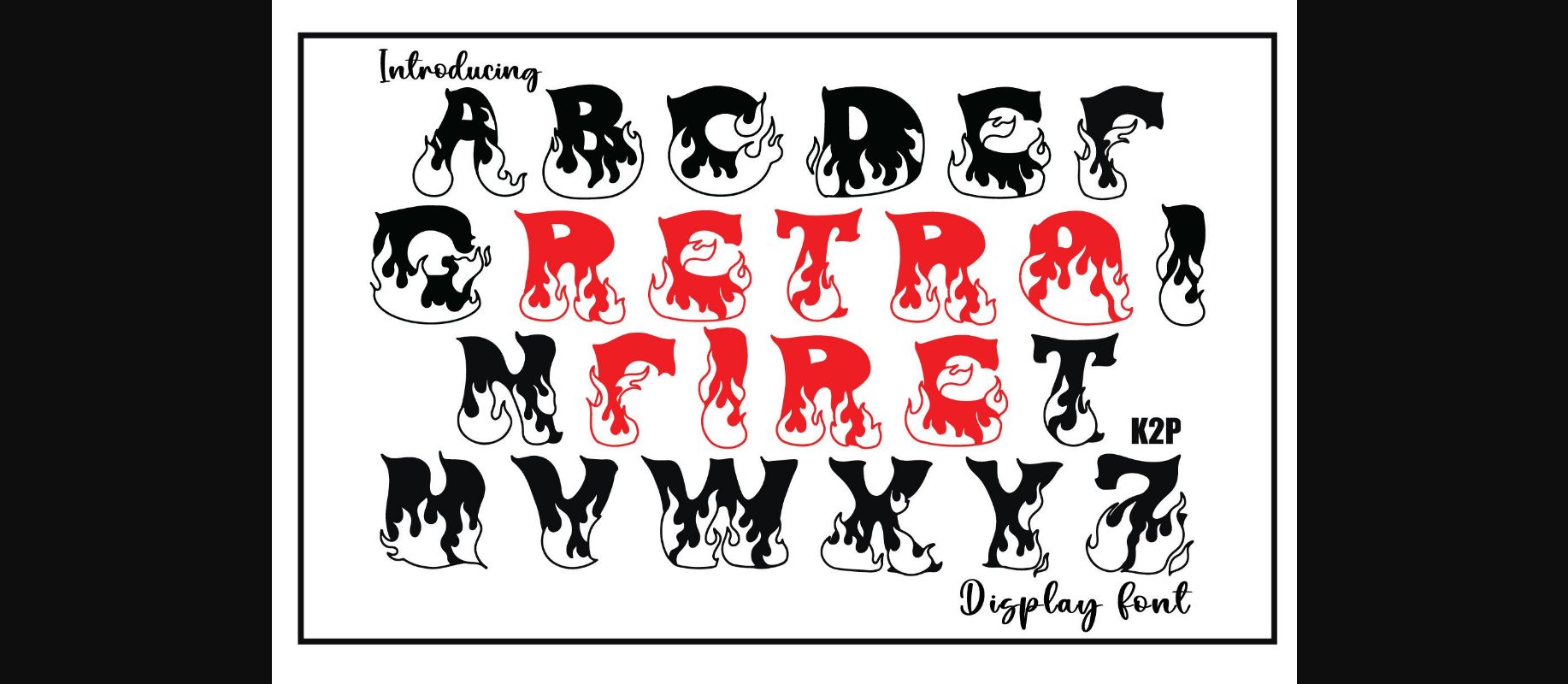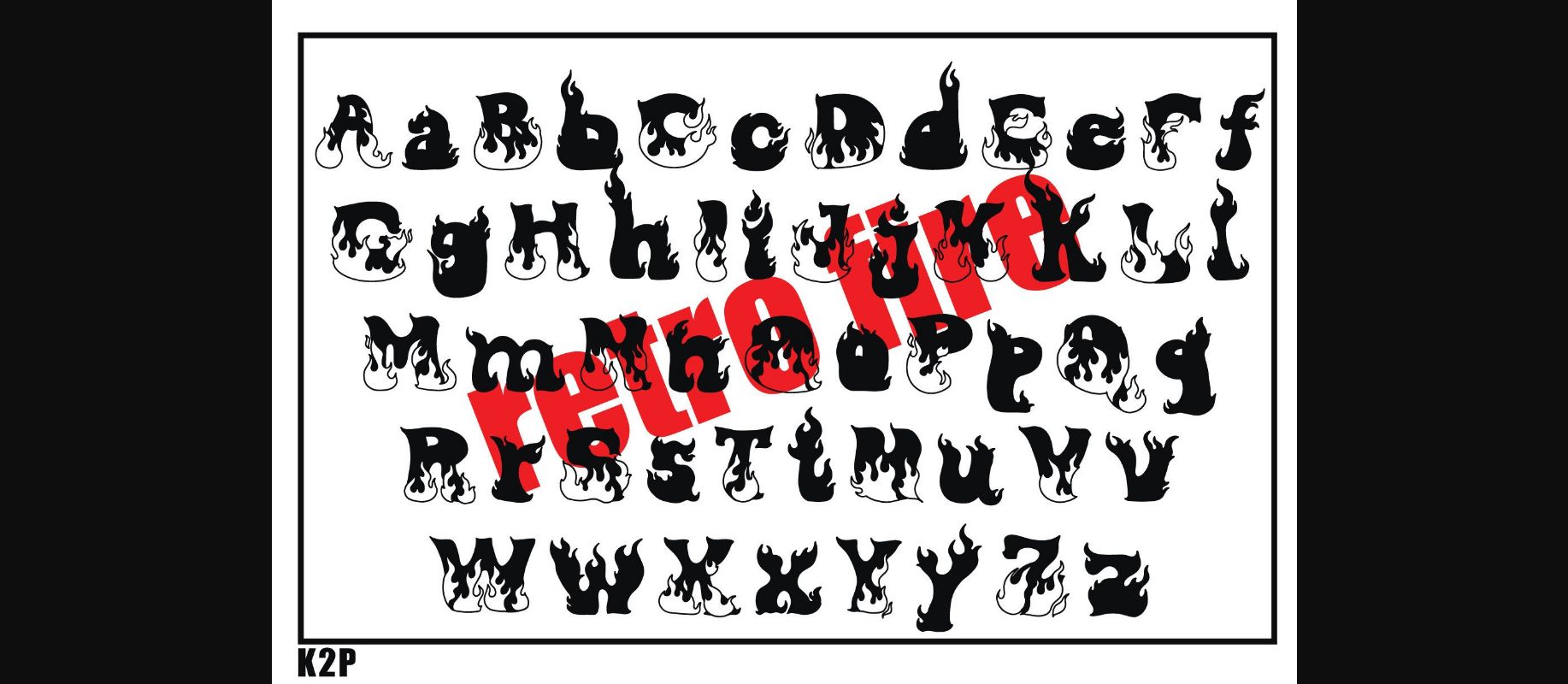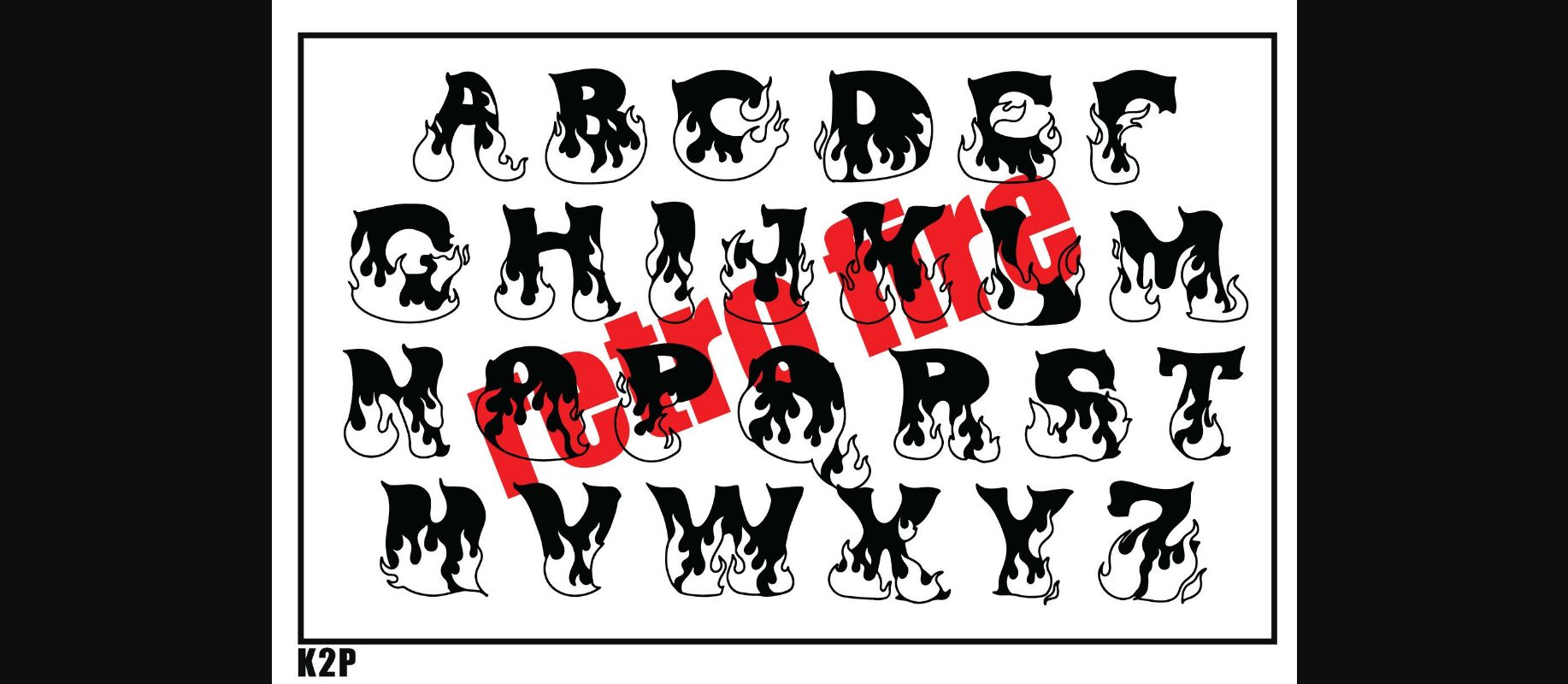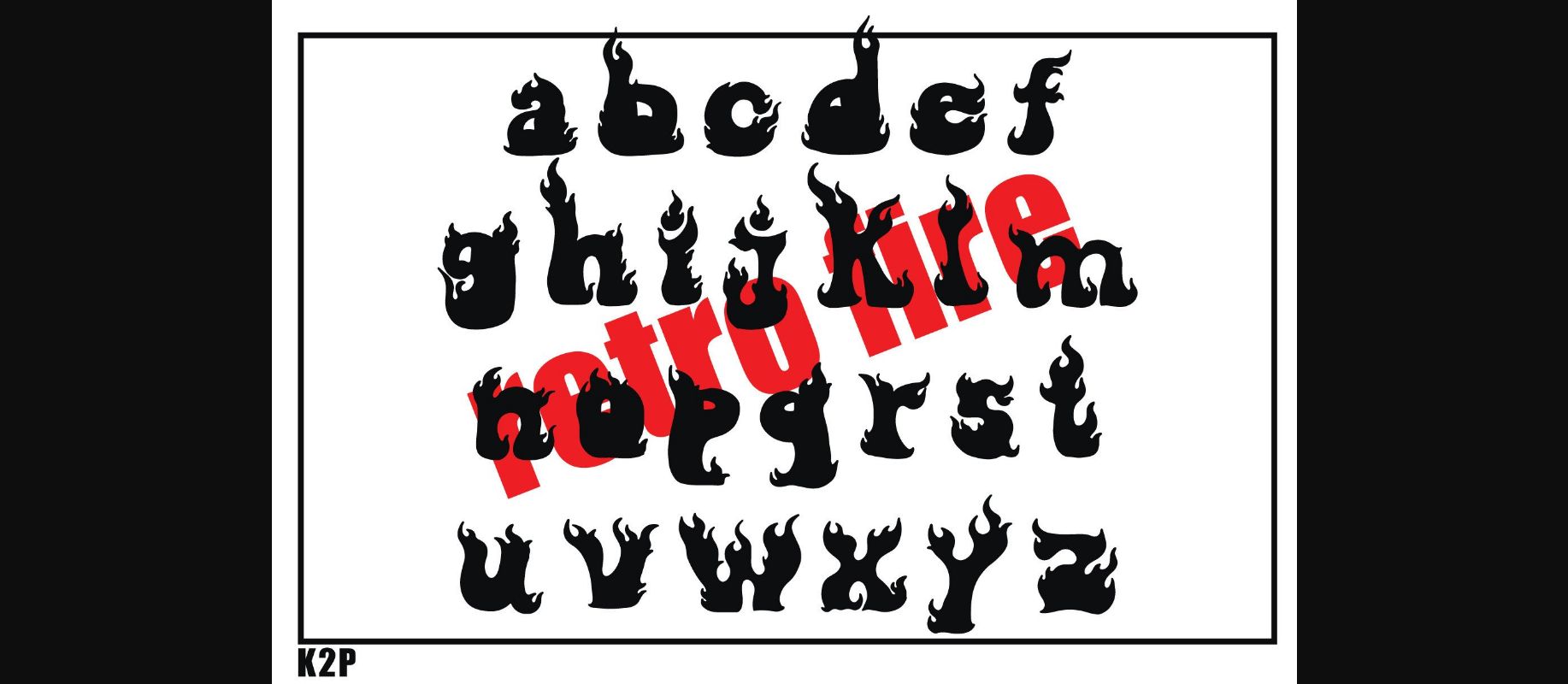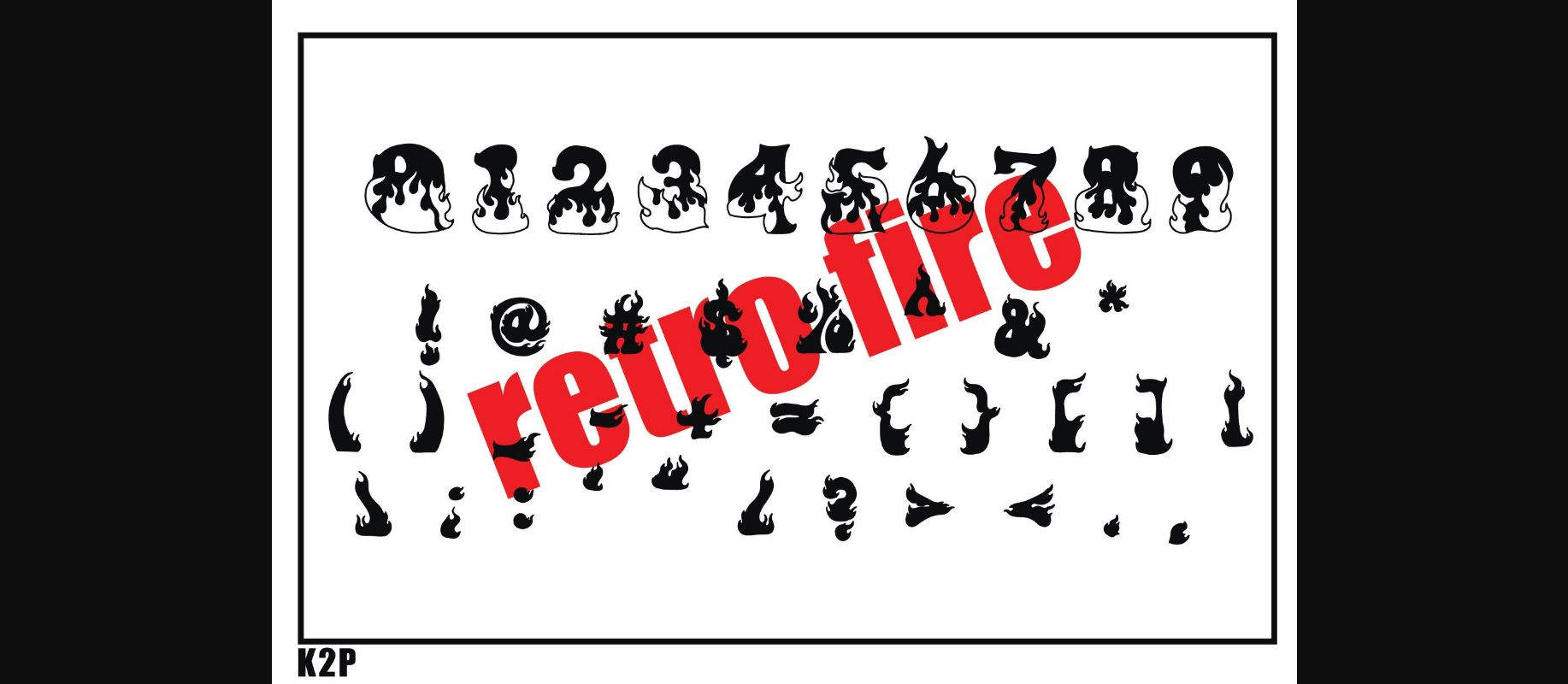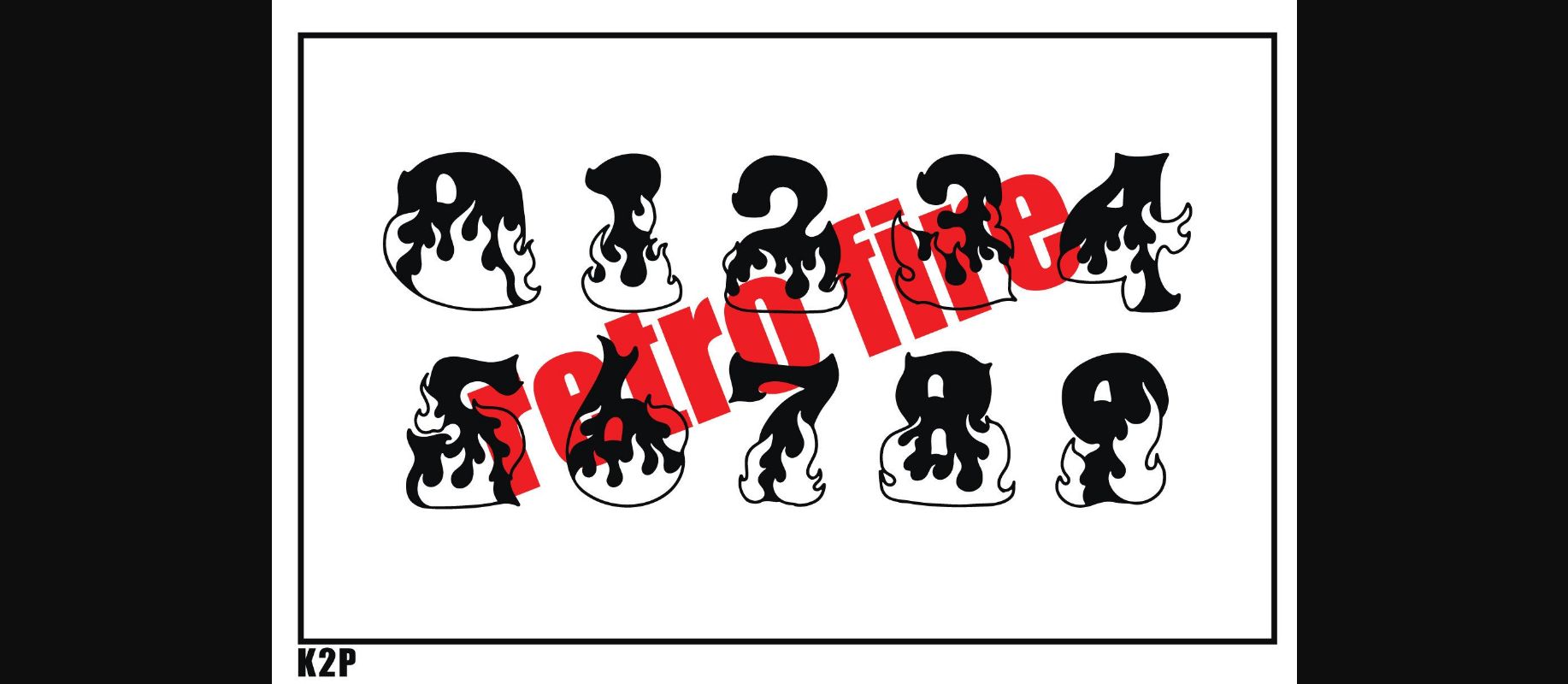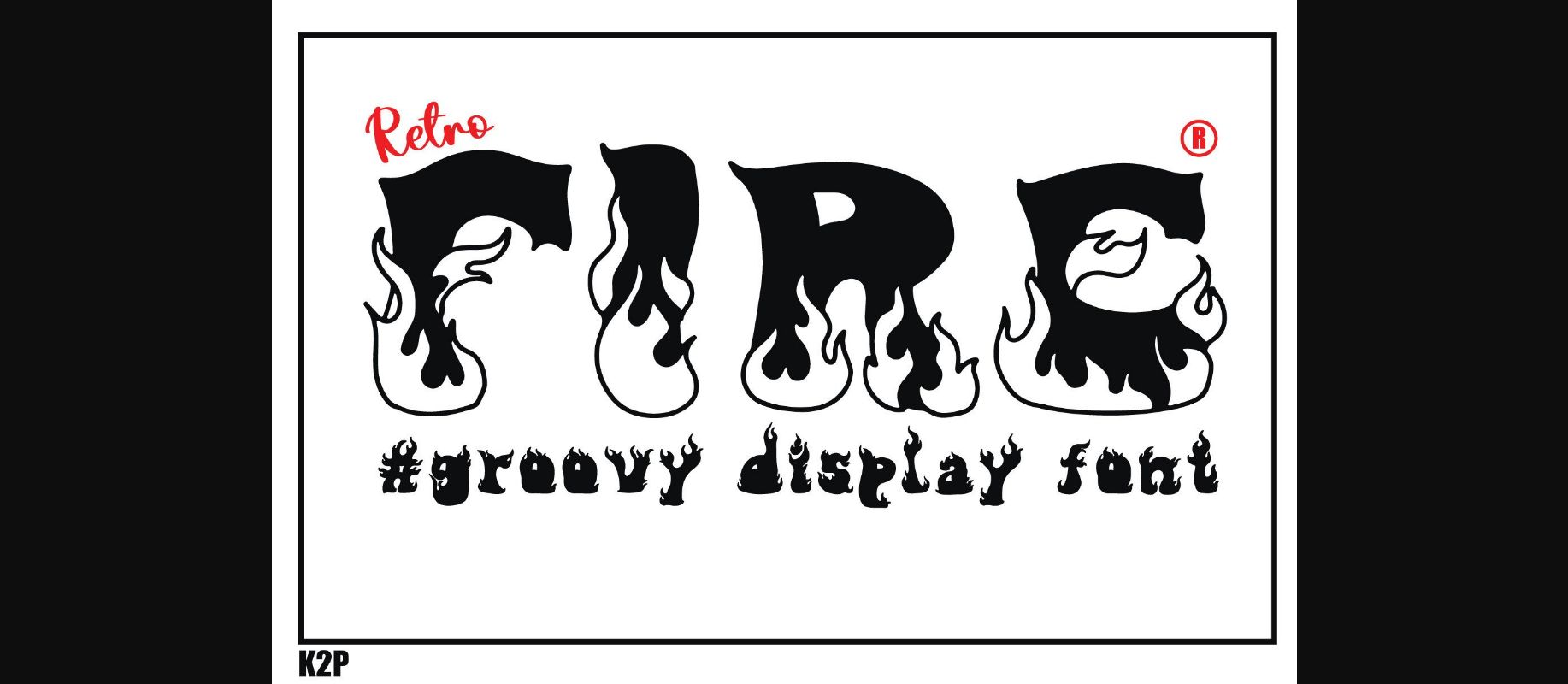
HomeDecorative FontsRetro Fire Font Decorative Fonts Retro Fire Font FacebookXPinterestWhatsApp 1 of 9 ... Retro Fire Font Poster 2... Retro Fire Font Poster 3... Retro Fire Font Poster 4... Retro Fire Font Poster 5... Retro Fire Font Poster 6... Retro Fire Font Poster 7... Retro Fire Font Poster 8... Retro Fire Font Poster 9... About Retro Fire Font Retro Fire is a bold, incredibly cool, and assertive decorative font. It can be used for various design ideas related to speed, sports, or both. Have fun with this beautiful font and explore its endless variations. DOWNLOAD NOW People also explored Gussion Font Blushing Font Daisha Font Follback Font Thenicle Regular Font Wedding Font Chocolate Cheese Font Farmhousing Font Big Cola Font 390 0 TagsRetro Fire Font Previous articleChristmas Tree FontNext articleNian Chinese Monogram Font LEAVE A REPLY Cancel reply Comment: Please enter your comment! Name:* Please enter your name here Email:* You have entered an incorrect email address! Please enter your email address here Website: Save my name, email, and website in this browser for the next time I comment. Personal Use Free Rennoya Personal Use Free Read more about this font Ennobled Pet Personal Use Free Read more about this font Maharany Personal Use Free Read more about this font Marthissa Personal Use Free Read more about this font BLOG 5 Fonts That Will Dominate Design Trends in 2026 5 Fonts for 2026 That Will Dominate Design Trends Typography plays a critical role in visual communication, and as we look ahead to 2026, it’s... Where to Buy American Fonts Online in 2024 Top 10 Handwritten Fonts That Elevate Your Designs The 10 Best Handwriting Fonts to Add Personality to Your Designs